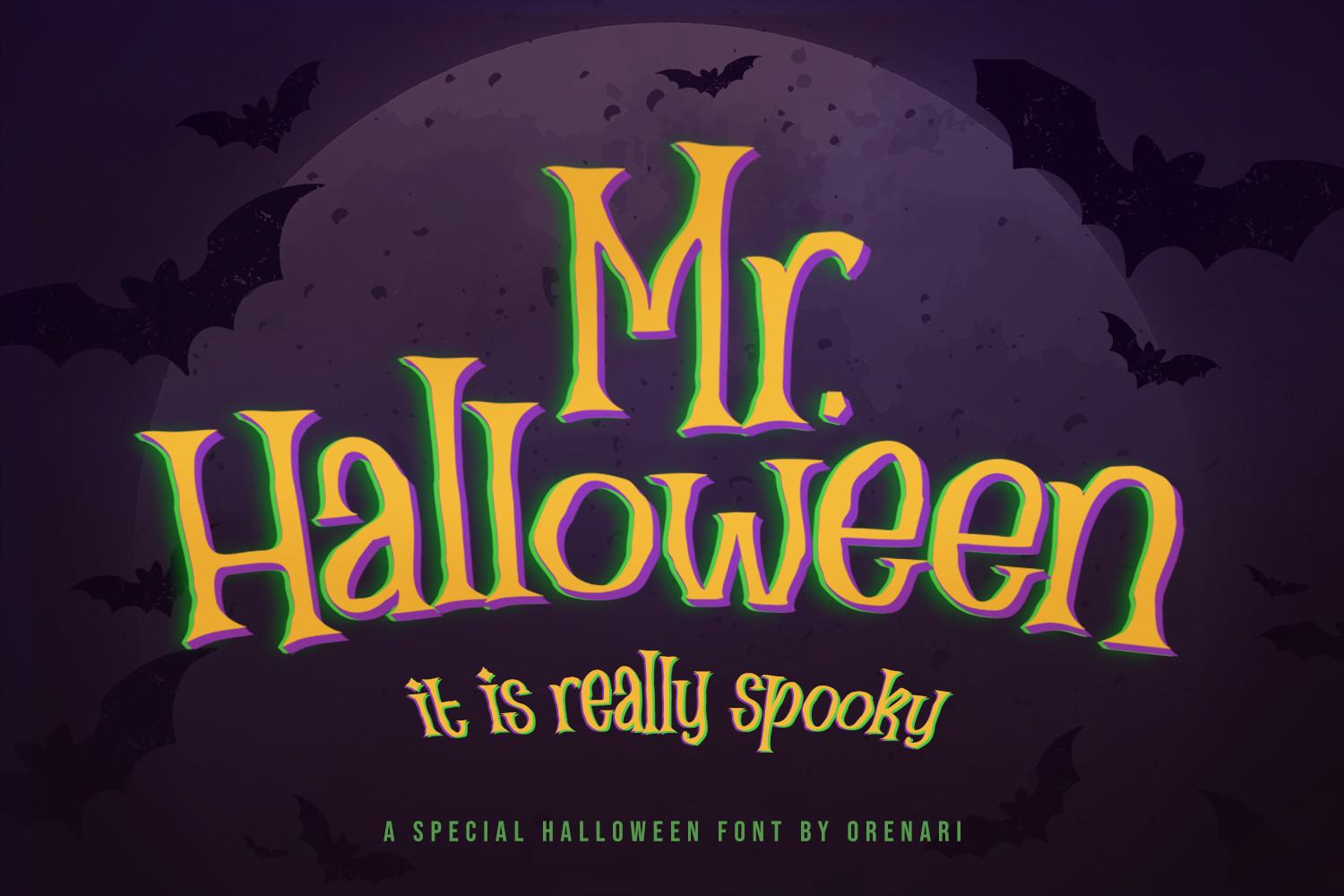
Mr Halloween Font Description
Mr Halloween is a cook and spooky display font. This font is PUA encoded which means you can access all of the glyphs and swashes with ease! Add it confidently to your favorite creations and let yourself be amazed by the outcome generated.